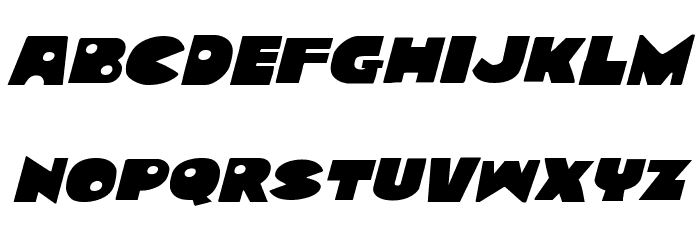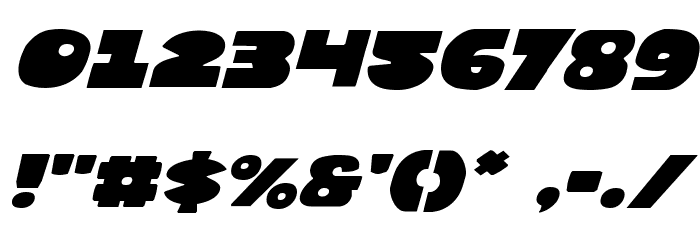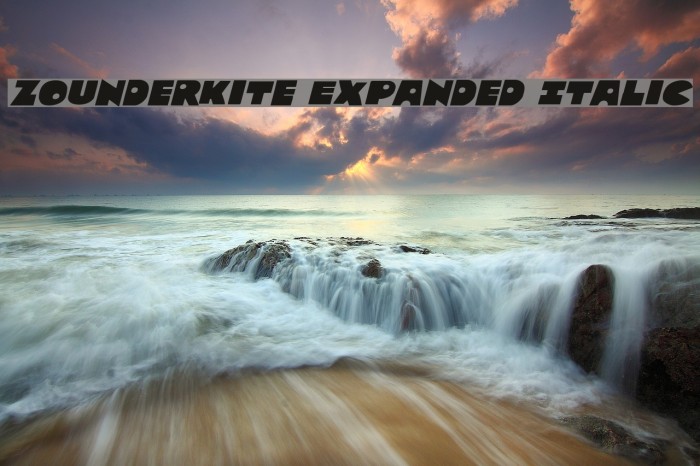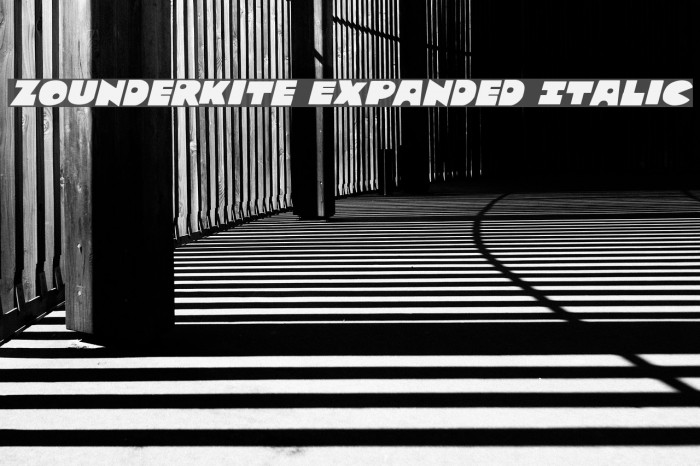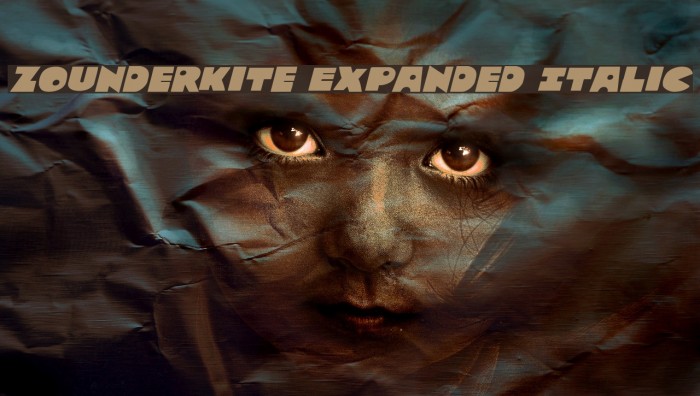
Zounderkite Expanded Italic Font
This font features a bold and dynamic style with a strong presence. The characters are designed with an expanded width, giving them a robust and impactful look. The italic slant adds a sense of motion and energy, making it suitable for attention-grabbing designs. The strokes are thick and consistent, providing a high contrast that enhances readability. The overall design is modern and slightly futuristic, with unique angles and curves that set it apart from traditional fonts.
A bold, expanded, and italic font with a modern, dynamic style.
- Proposed Projects: Ideal for use in headlines, posters, branding, and advertising where a strong visual impact is desired.